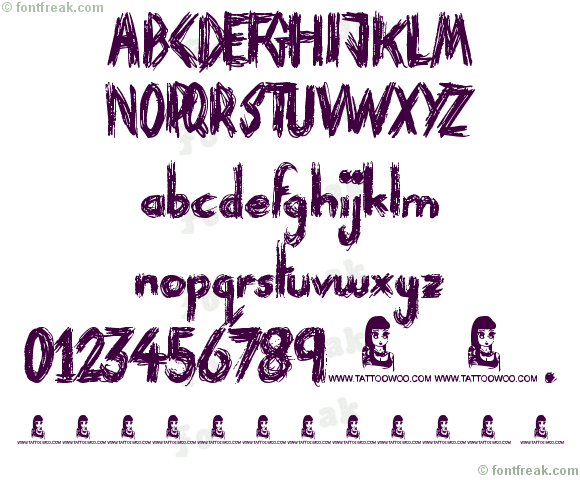
Paranoid Freak
Paranoid Freak, designed by Jonathan S. Harris, is a distinctive display font that captures attention with its raw and edgy aesthetic. This font belongs to the decorative category, characterized by its hand-drawn appearance that evokes a sense of spontaneity and artistic flair. The strokes are uneven, giving it a playful yet slightly chaotic vibe, which is perfect for projects seeking a unique touch. The weight of the letters varies, adding an element of contrast that enhances its visual interest. The spacing is intentionally irregular, contributing to the overall quirky feel of the typeface.
This font is particularly well-suited for creative projects such as tattoo designs, where its unconventional style can make a bold statement. It can also be effectively used in promotional materials for music events or festivals, where an edgy look is desired. Restaurant menus that aim for a hip, urban atmosphere can benefit from the Paranoid Freak font, as can movie posters that want to convey a sense of intrigue and excitement. Additionally, graphic designers looking to attract a younger audience through social media graphics will find this font to be a great asset.
Targeting graphic designers, small business owners, and content creators, Paranoid Freak is versatile enough to be used in various contexts while still standing out. Its unique design allows it to convey a sense of personality, making it more than just a typeface; it becomes a part of the brand's identity. For those looking to incorporate an unconventional and artistic flair into their designs, the Paranoid Freak font free download offers an exciting opportunity to elevate their projects and captivate their audience. Its distinctive style truly sets it apart in the world of typography.